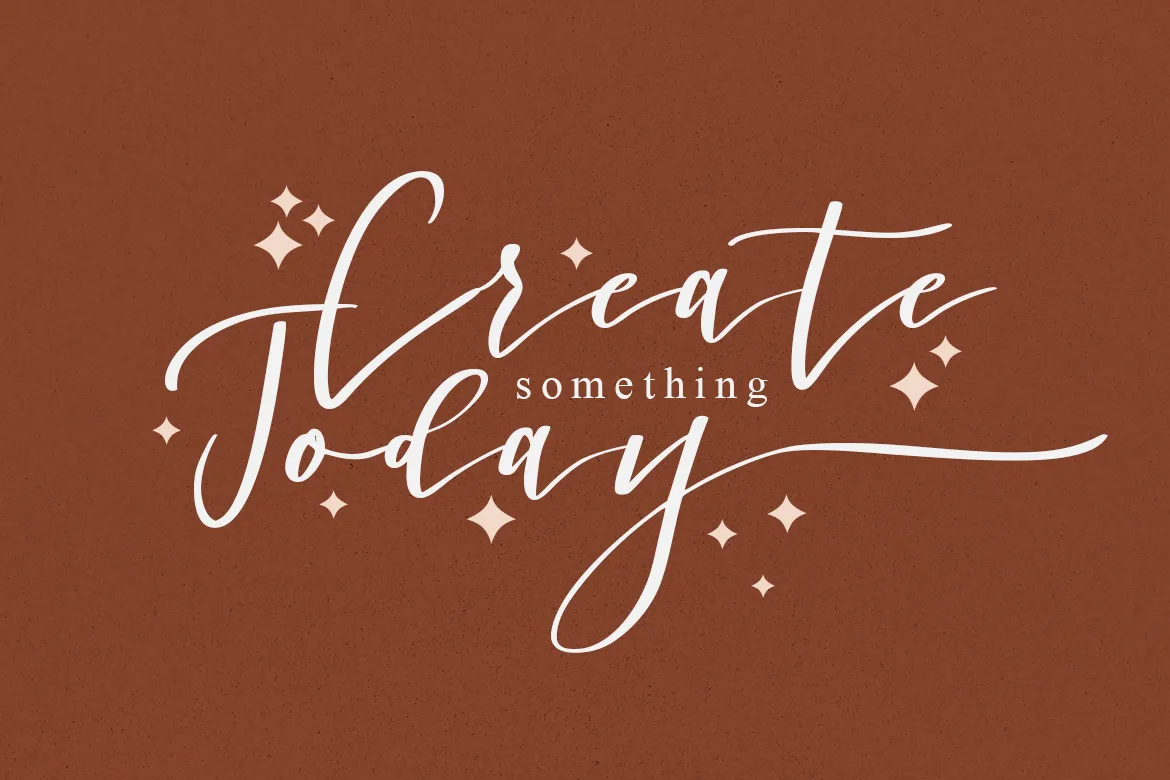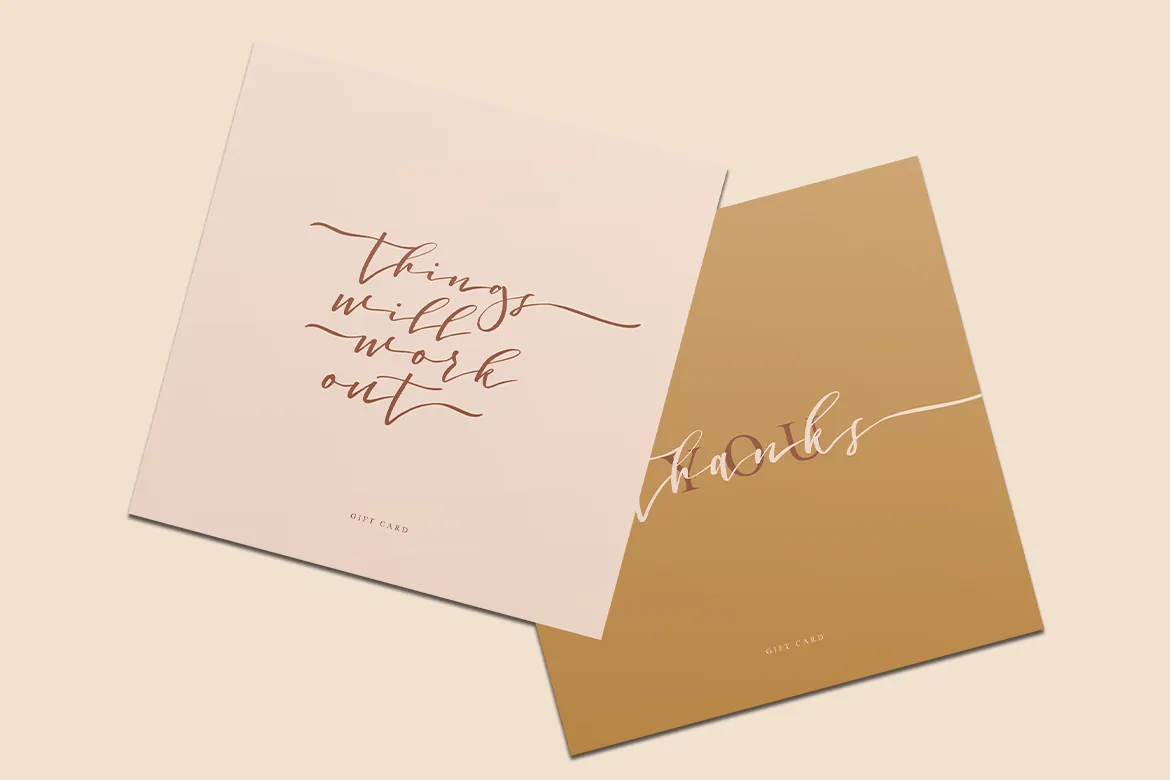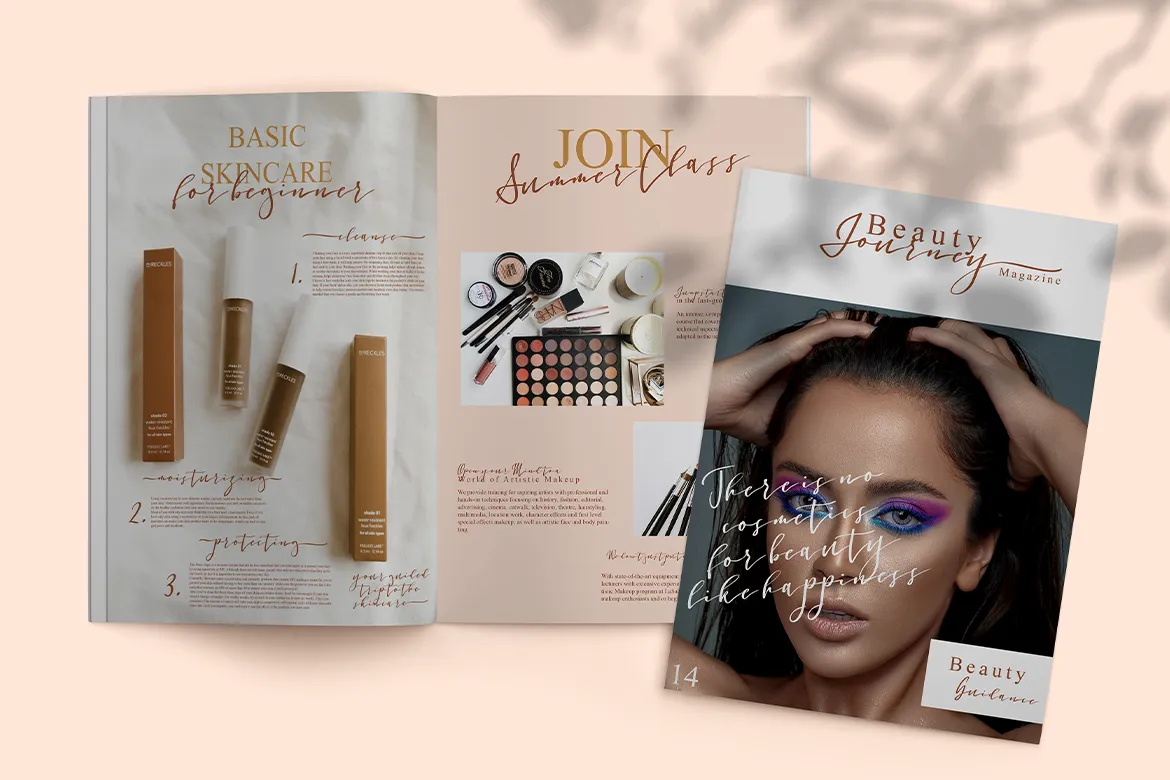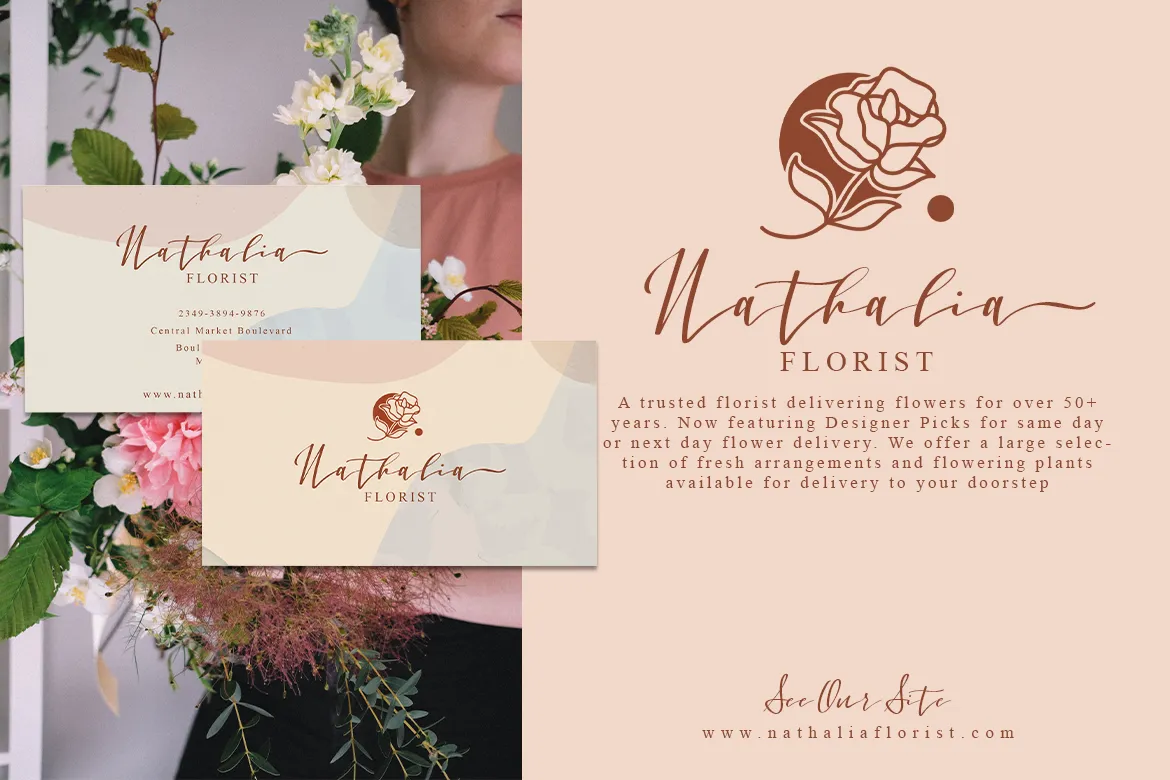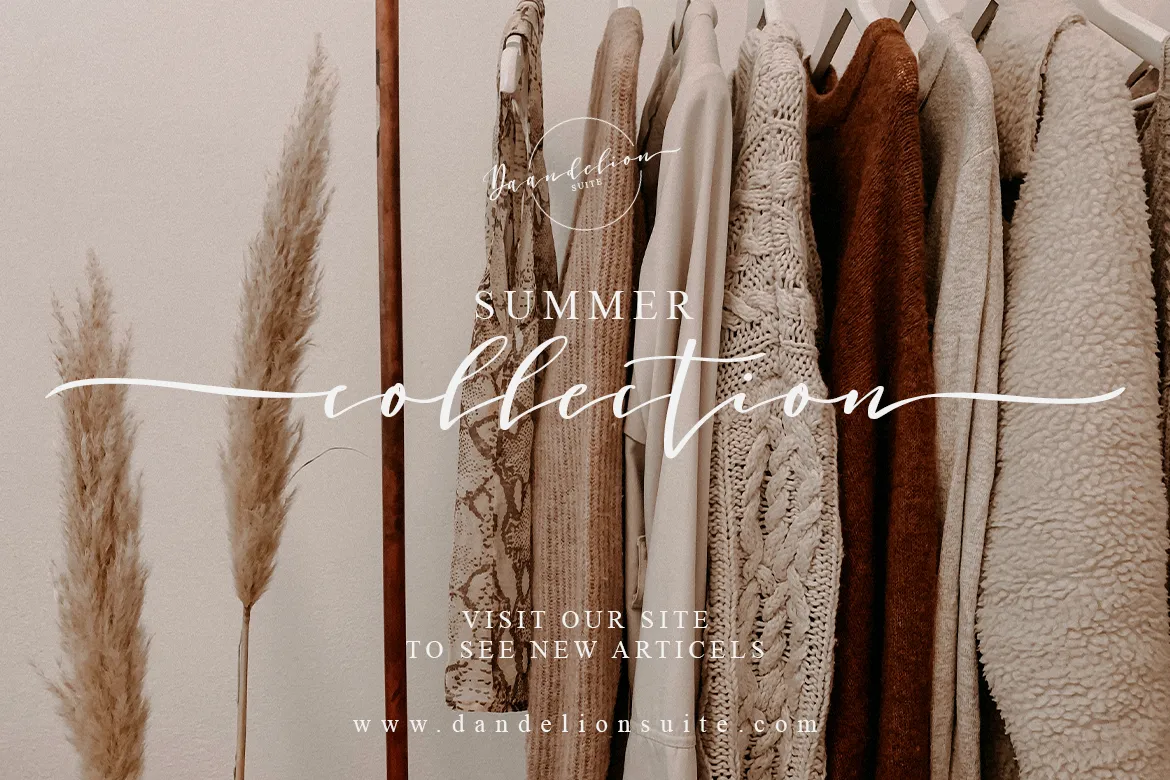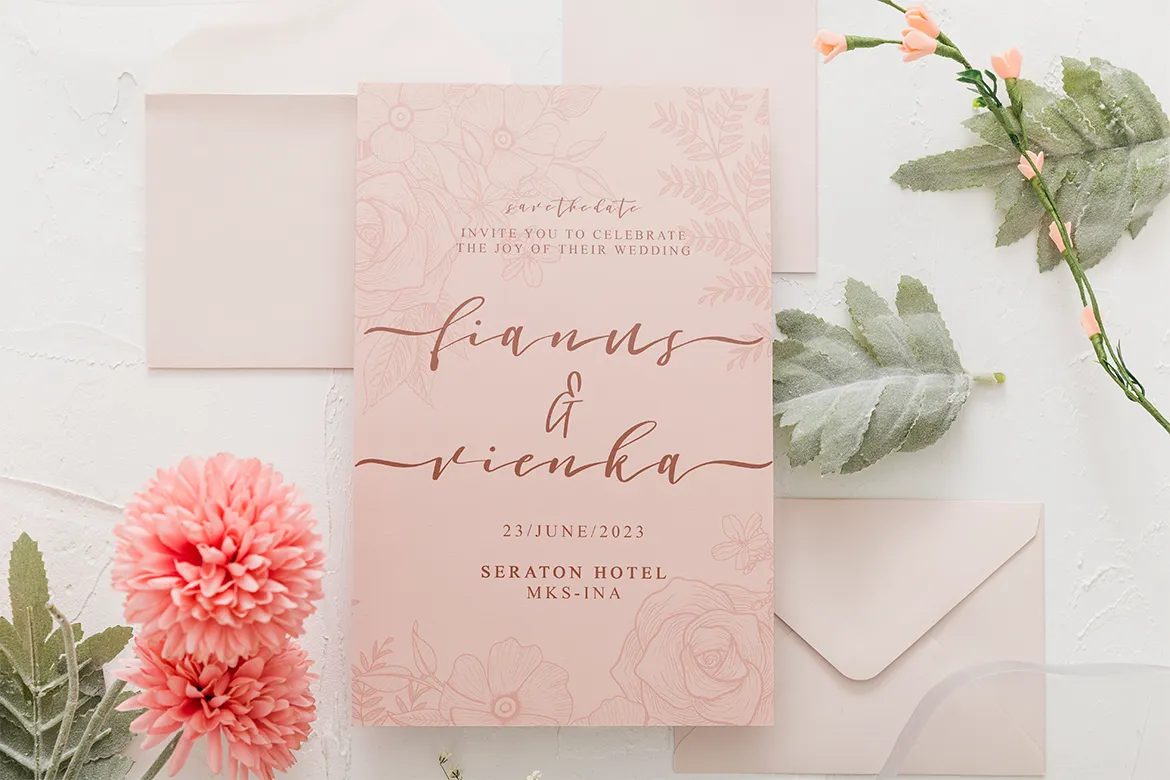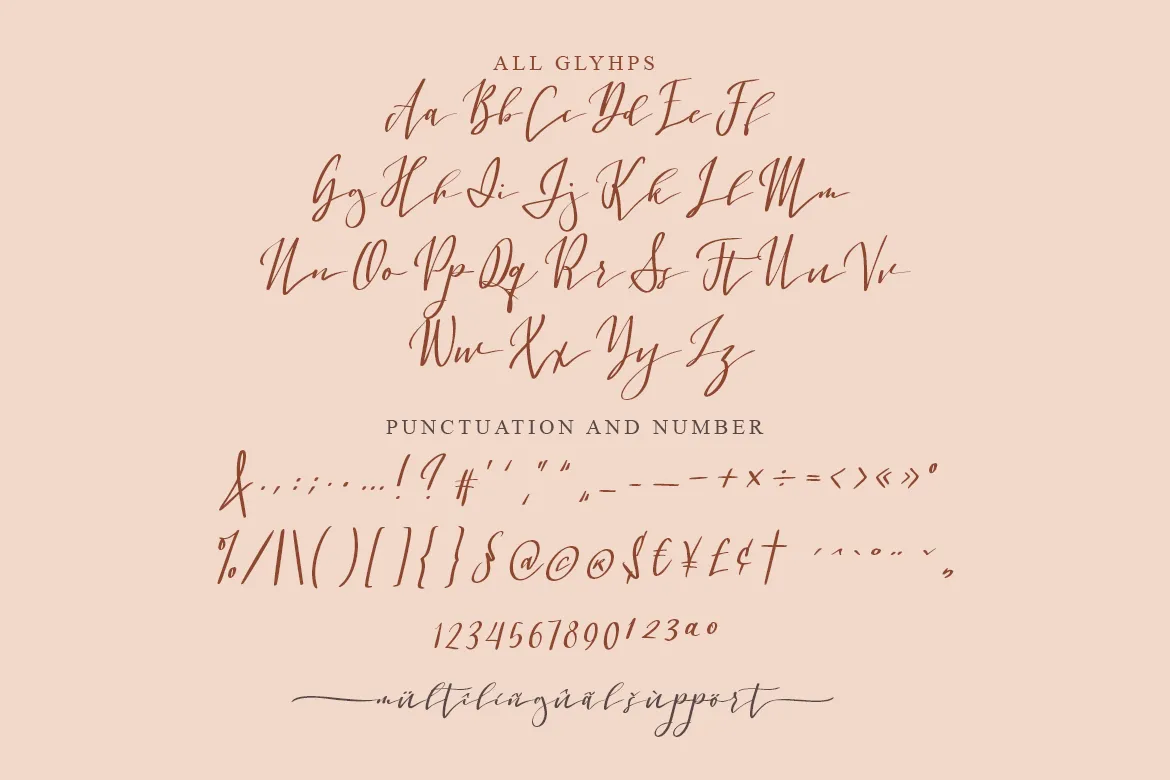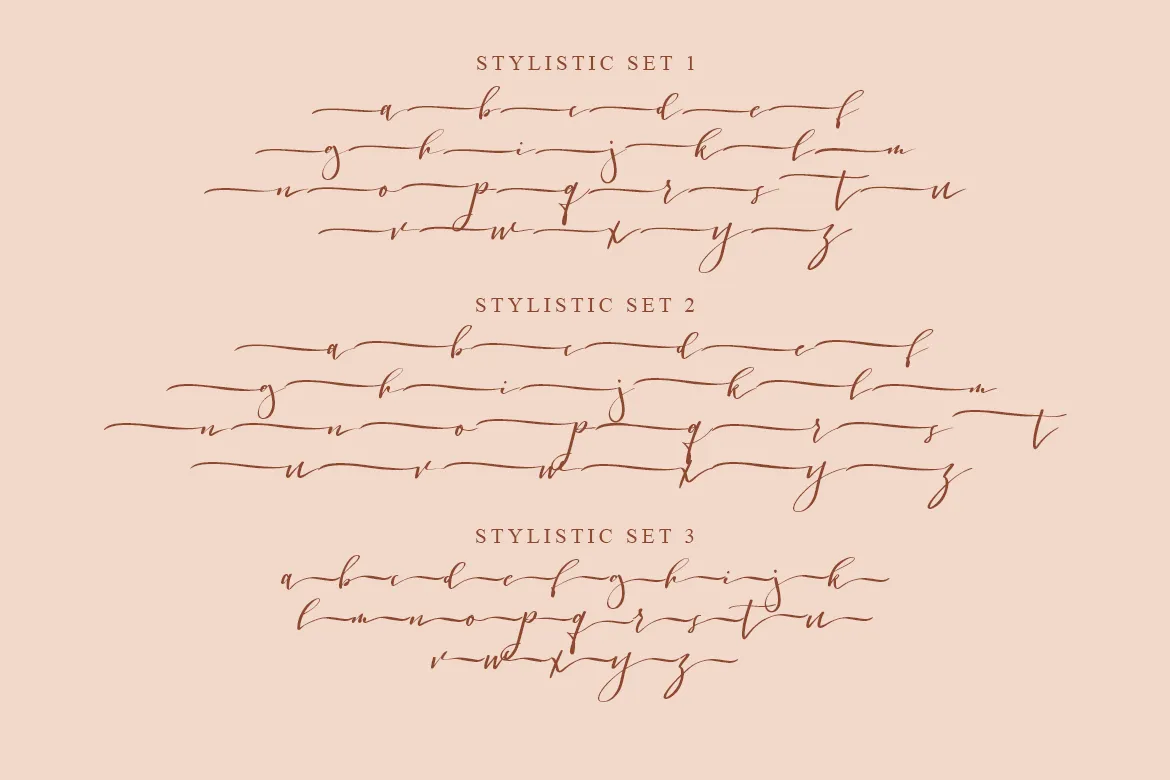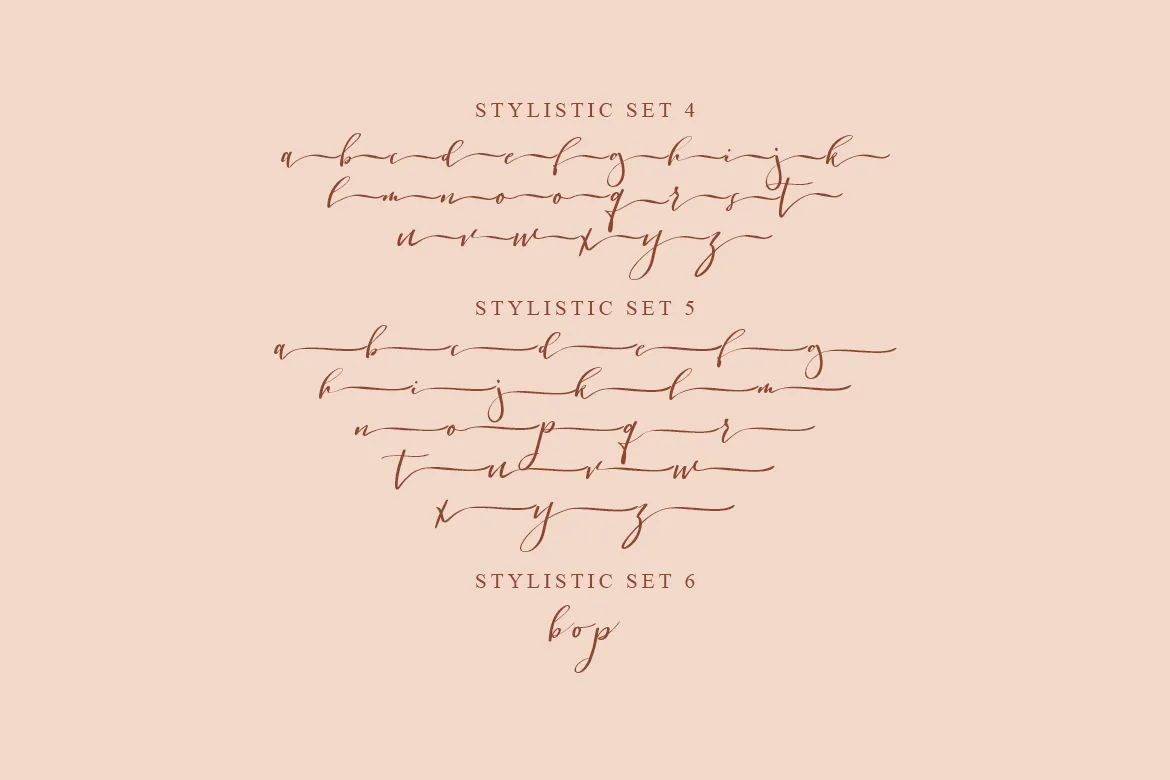
Introducing, Amorela Palmer, the font you’ve always wanted, now in your hands. It’s the dreamy, creamy calligraphy you love, now available on a computer near you.
If your design has been looking a little drab lately, it’s time to add Amorela Palmer to your life. With this gorgeous font, comes with more than 300 characters, and bunch of ligatures and stylistics alternate, you can infuse every element of your work with the magic of hand-drawn letters. It’s easy-to-read and sure to please even the most discerning of customers.